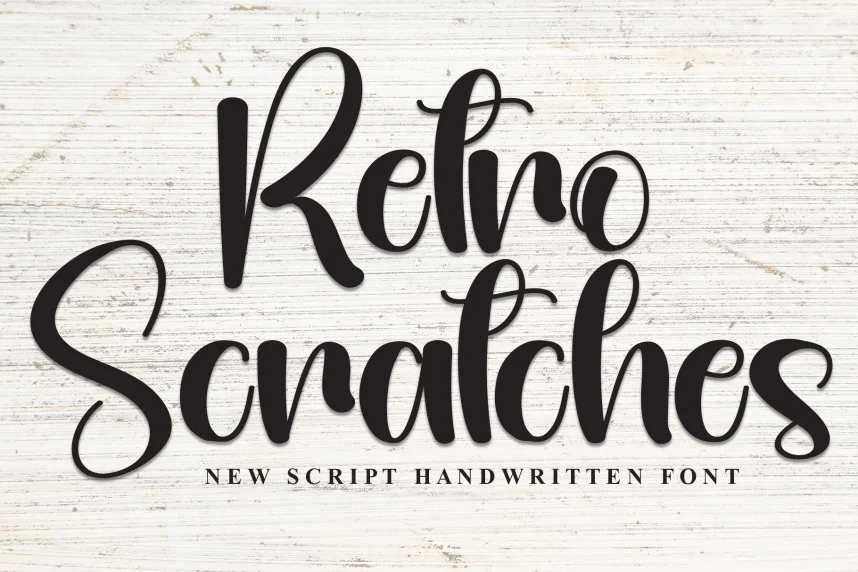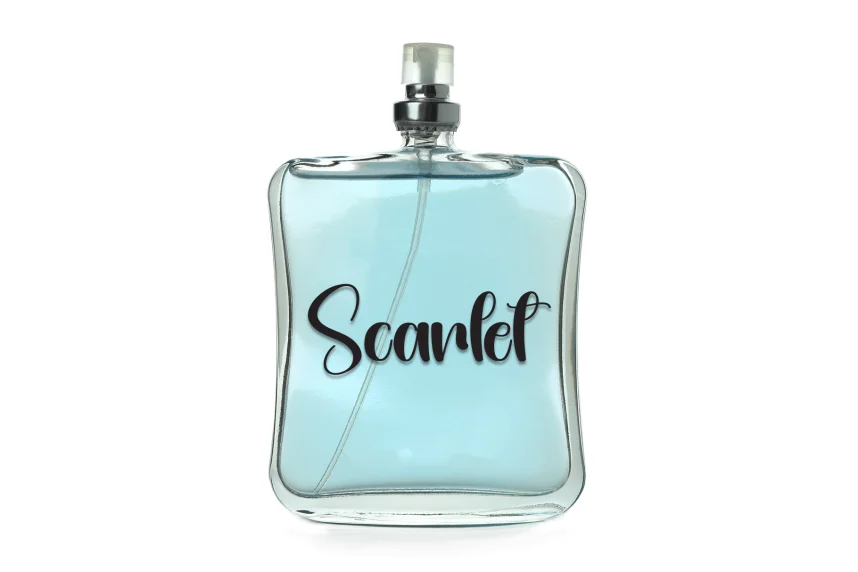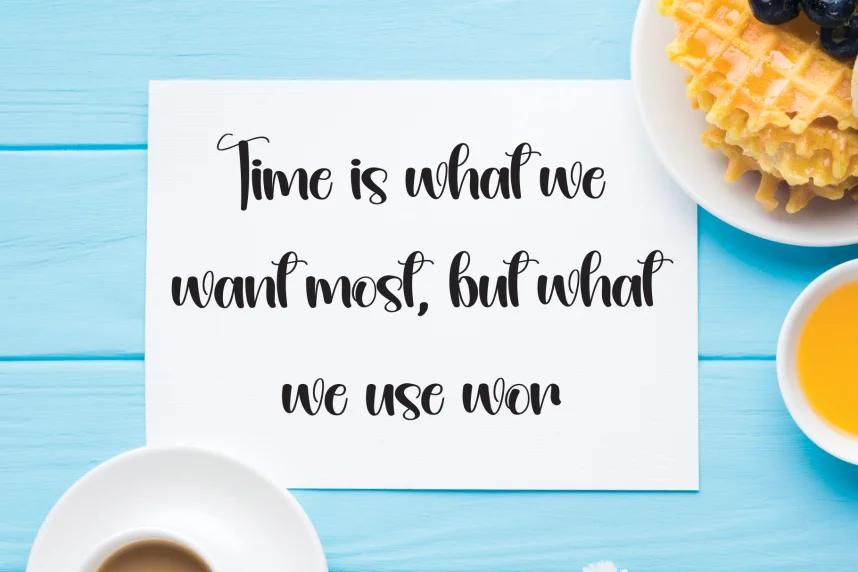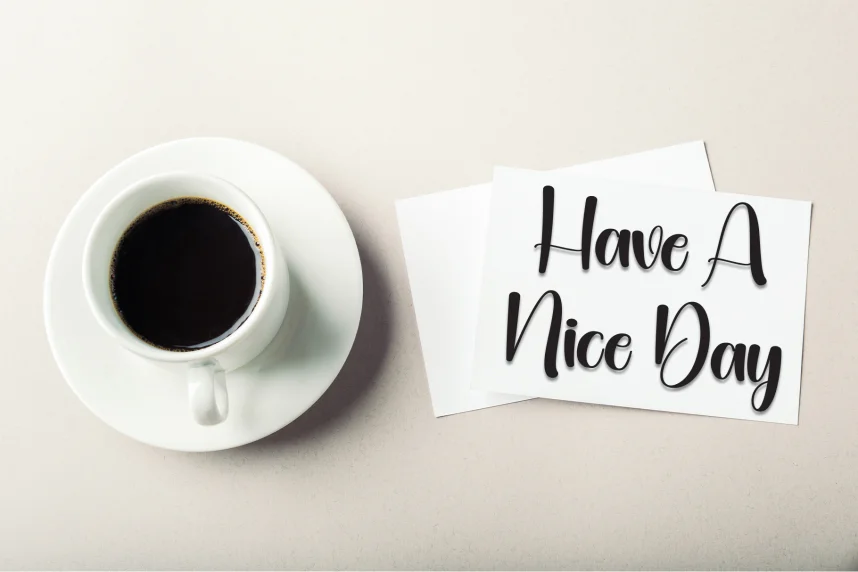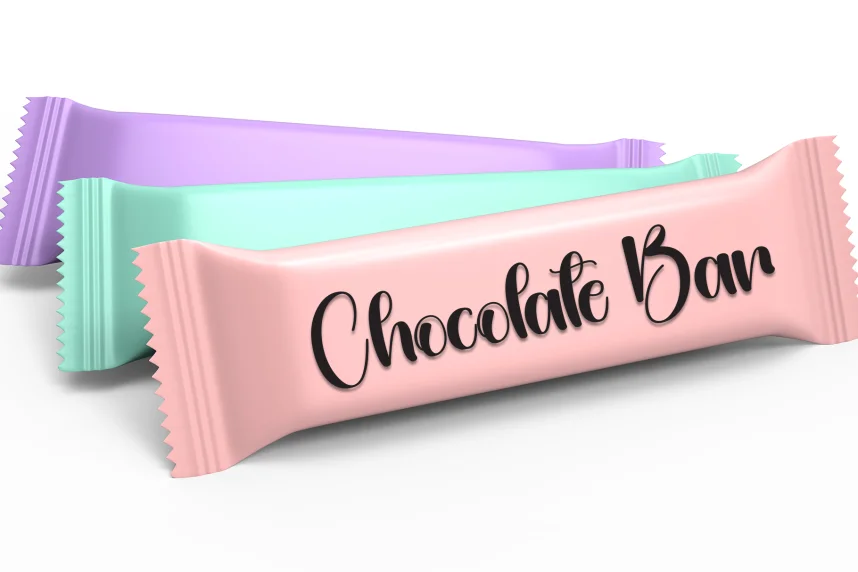
Retro Scratches Style Script Font addresses the need for a font that adds a retro, textured feel to designs while maintaining readability. Designers use it to give logos, posters, and branding materials an aged, authentic look.
This font is a script display font featuring irregular strokes, distressed edges, and uneven letterforms. Its vintage style uses deliberate imperfections to simulate old, hand-drawn typography. The font remains legible despite the texture, making it perfect for short text in larger formats.